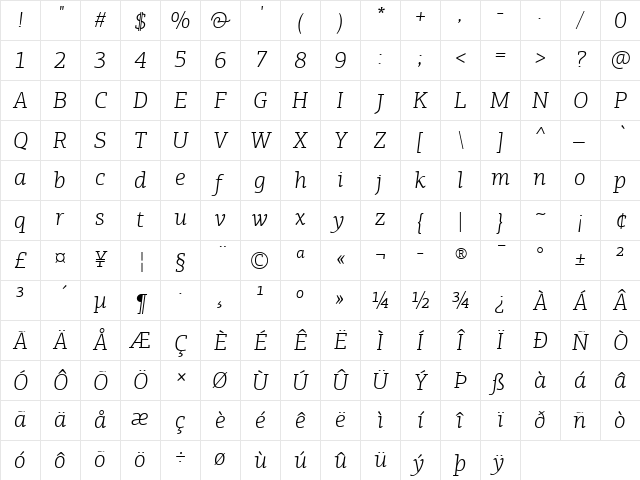
Complete PF Agora Slab Pro Light Italic glyph index. Displaying only characters natively supported by PF Agora Slab Pro Light Italic font.
PF Agora Slab Pro features prominent, blocky serifs that give it a confident, grounded presence - equally at home in editorial settings and bold branding work. The slanted form adds forward momentum and visual energy. Its slender proportions lend an understated elegance to any composition.
Pro Tip: Use PF Agora Slab Pro for headlines and subheadings where its slab serifs can make an impression. It also holds up well in mid-size body copy thanks to its sturdy construction.